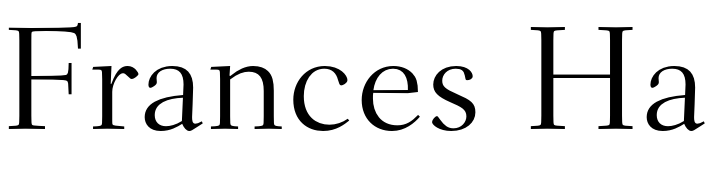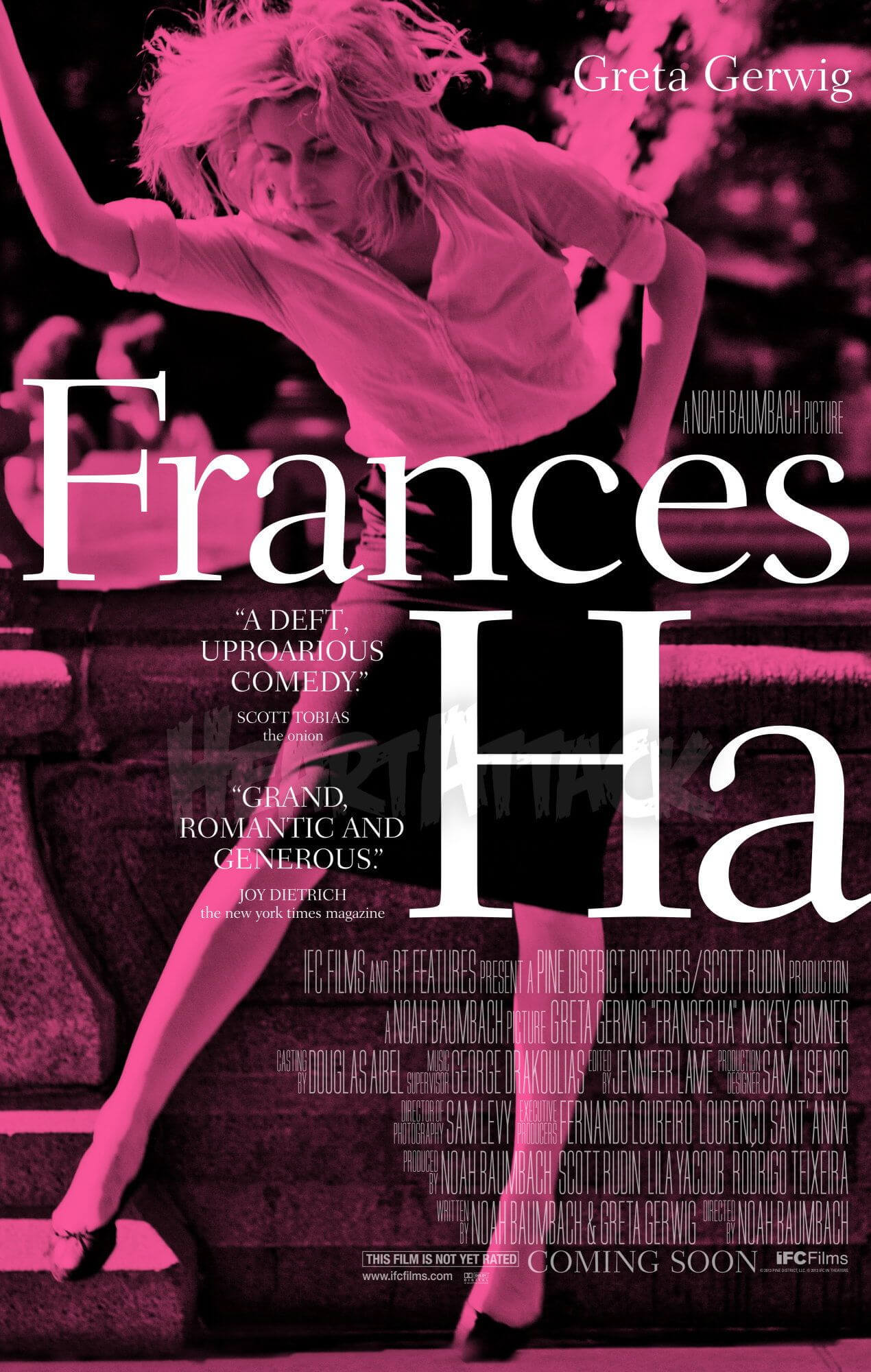
Fonts in UseFrances Ha is a 2012 independent film directed by Noah Baumbach, starring Greta Gerwig as the titular character. The film follows Frances, a 27-year-old aspiring dancer, as she navigates through life and relationships in New York City.
The film title on the poster is set in a font called Fairfield Light, which is an old-style serif typeface designed by Rudolf Ruzicka in 1940. Fanwood, an open-source interpretation of the typeface by Barry Schwartz, is available in four styles for free download here at FontGet.